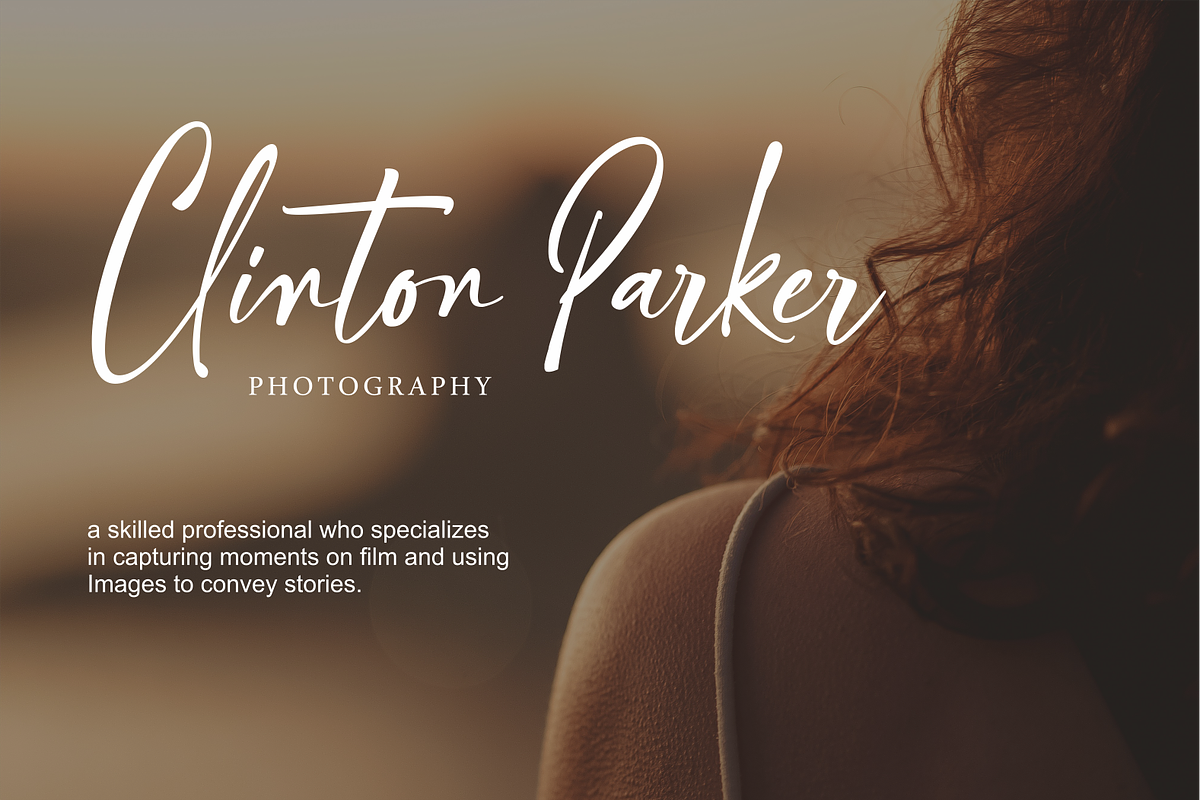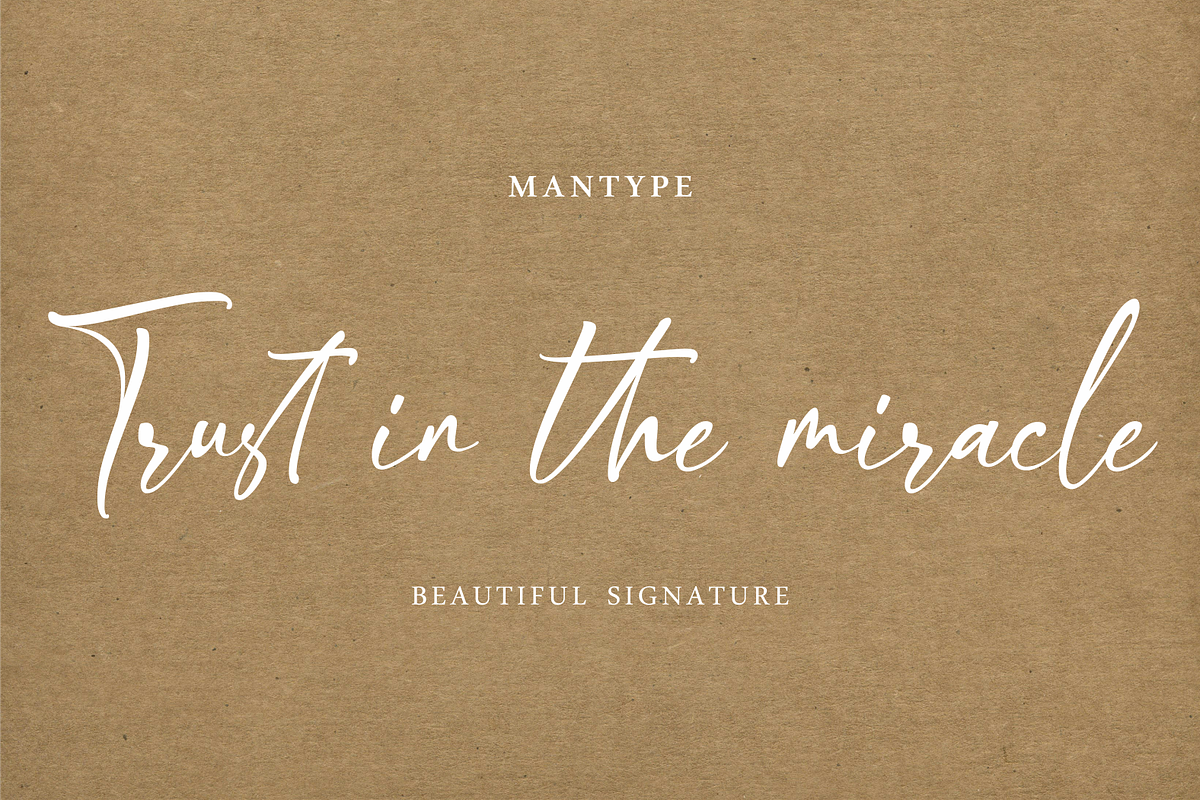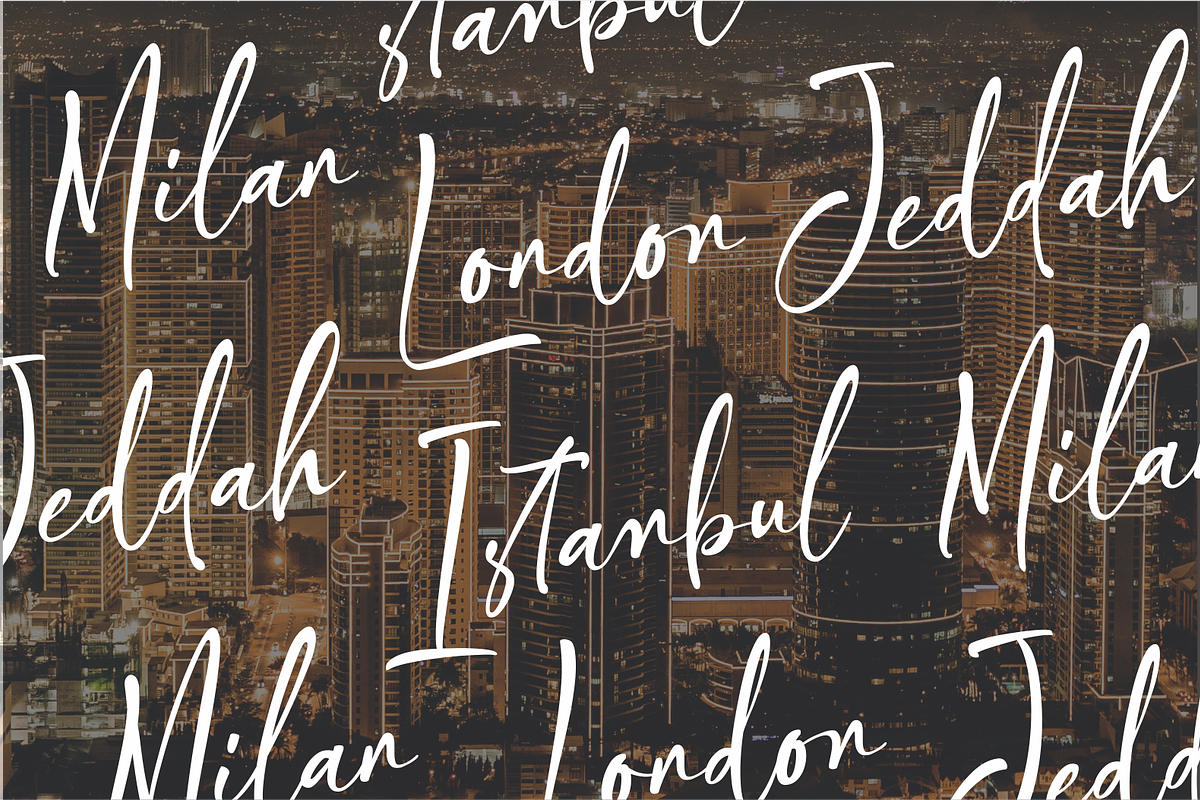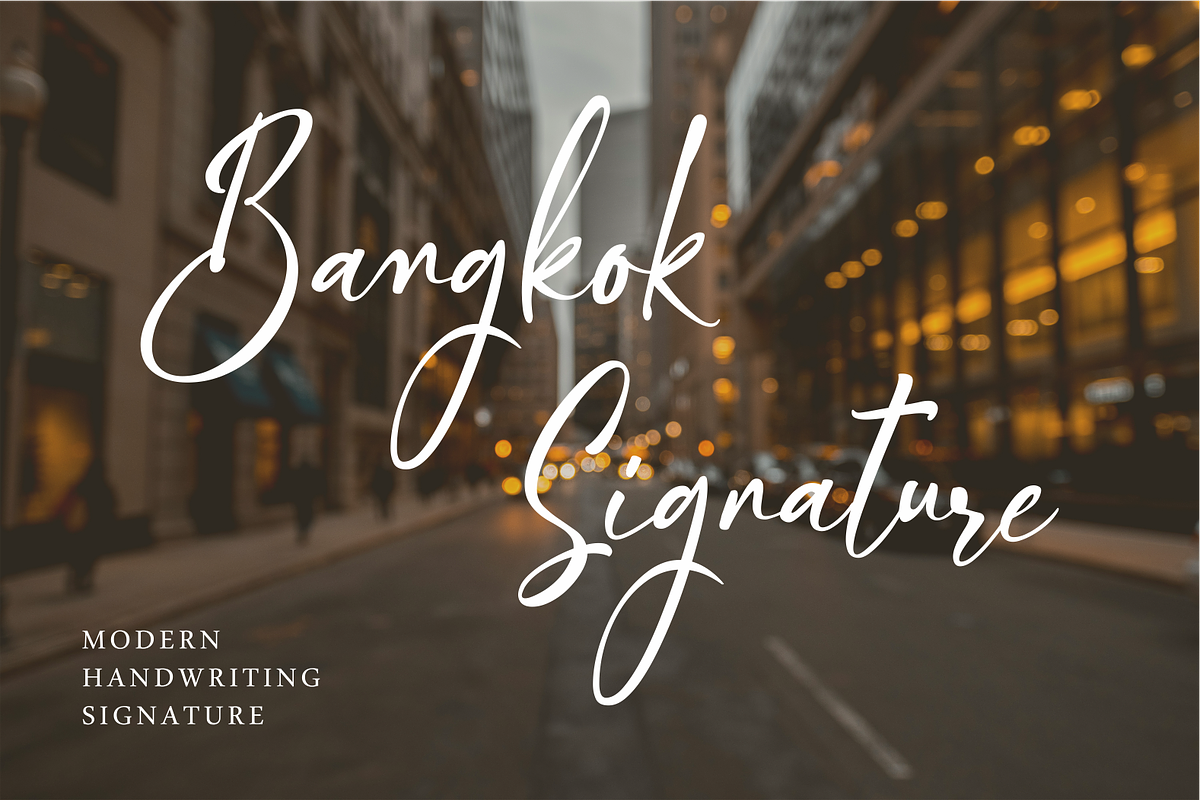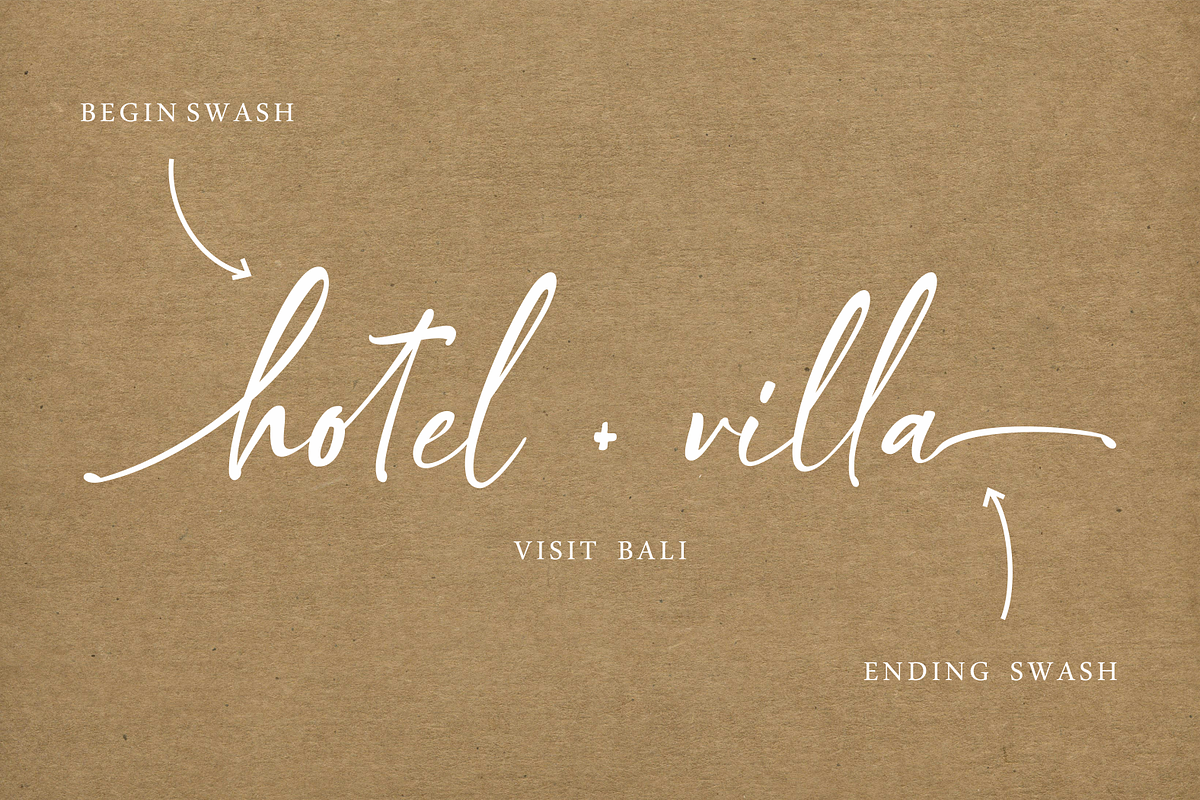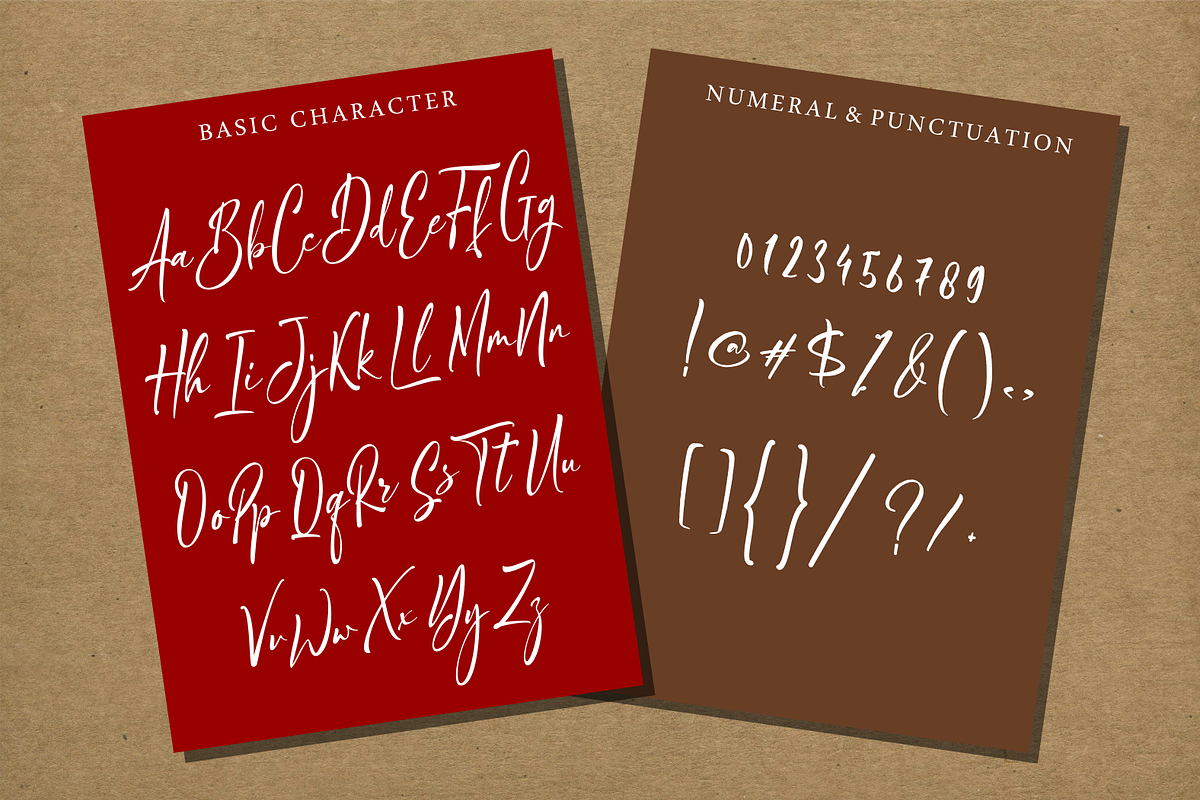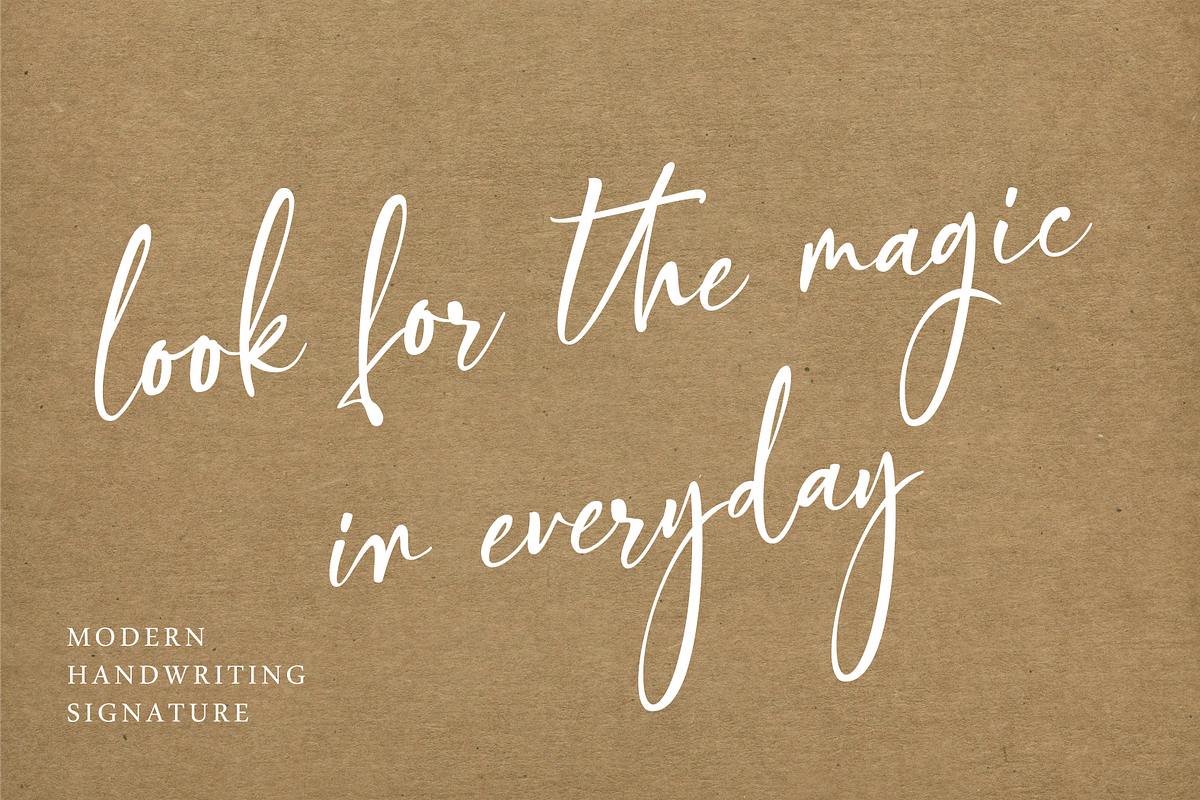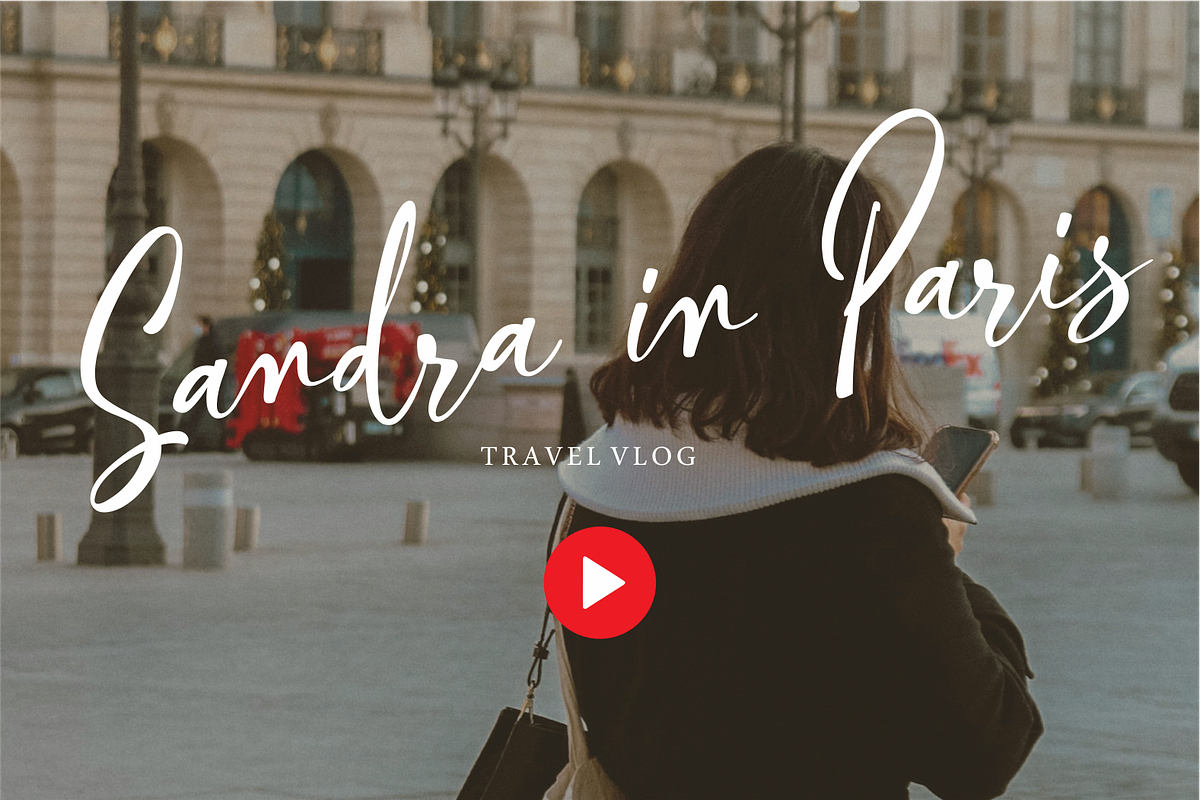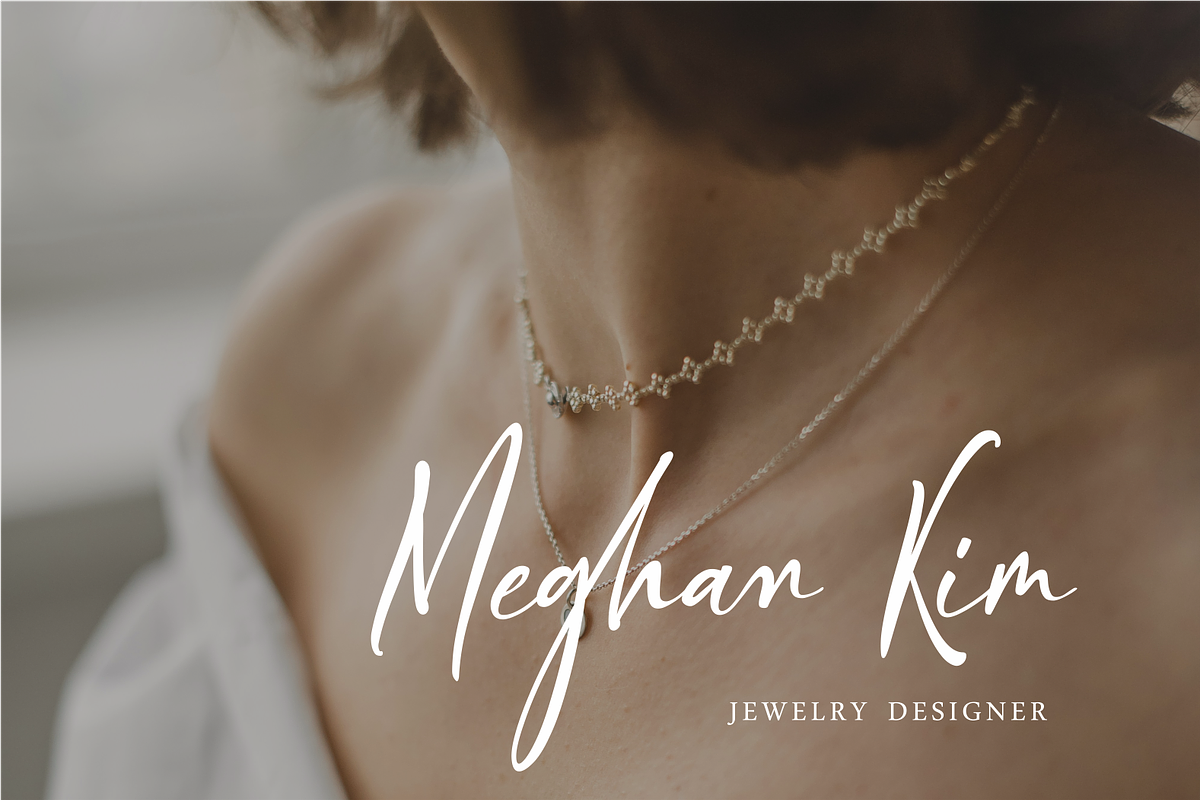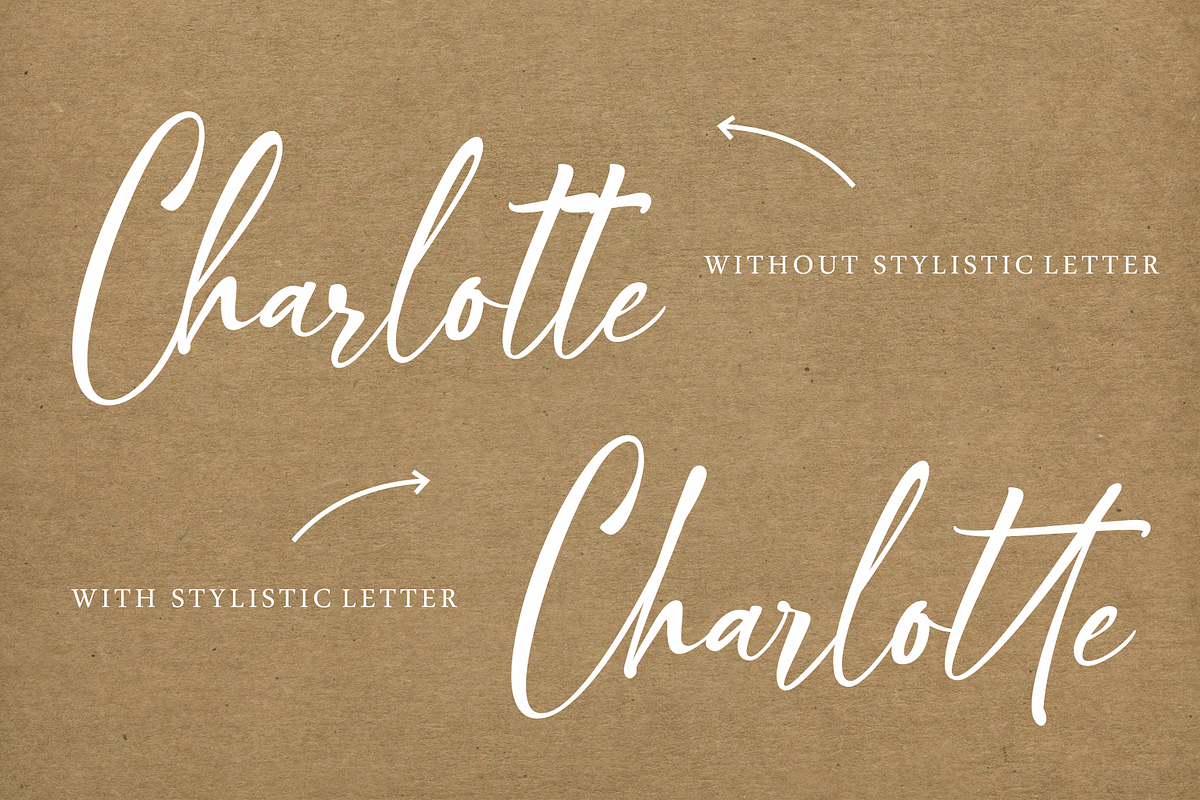
Bangkok Story | Handwritten Font
Bangkok Story is a messy handwriting font with a fun style and a touch of elegance. It combines a playful handwritten feel with natural, imperfect strokes, giving your designs a warm and personal touch.
Perfect for branding, logos, social media posts, invitations, quotes, packaging, merchandise, and other creative projects. Bangkok Story is designed to bring a casual yet stylish character to every word, making your designs feel more expressive, friendly, and unique.